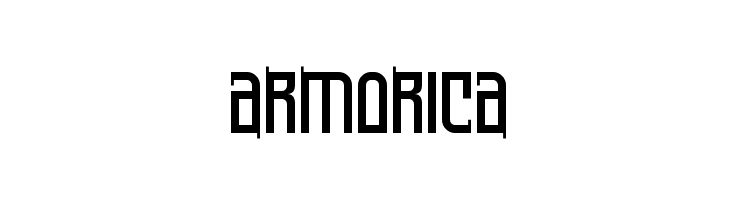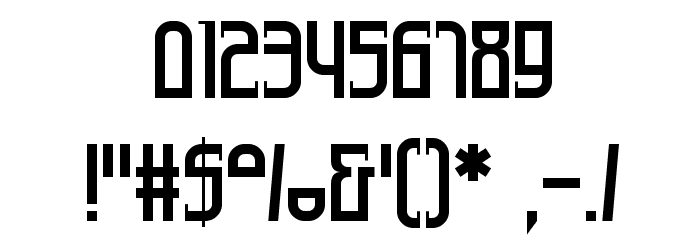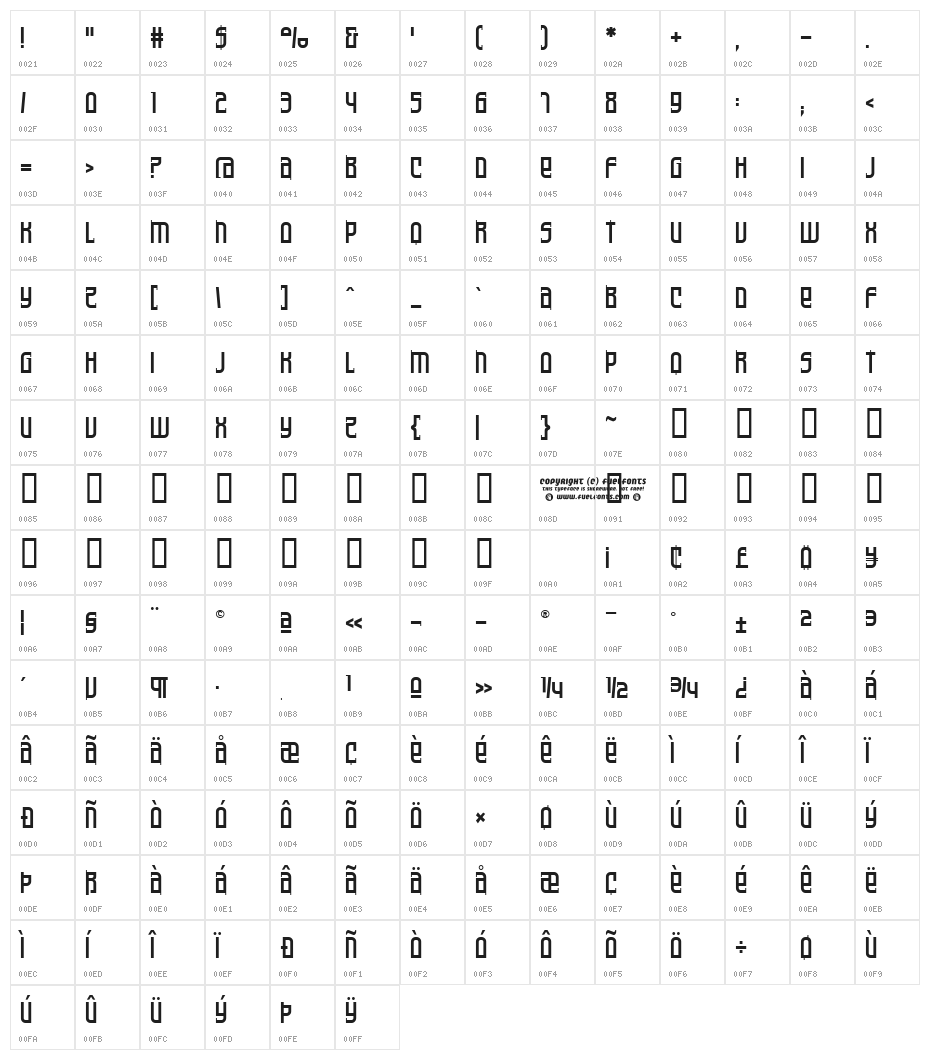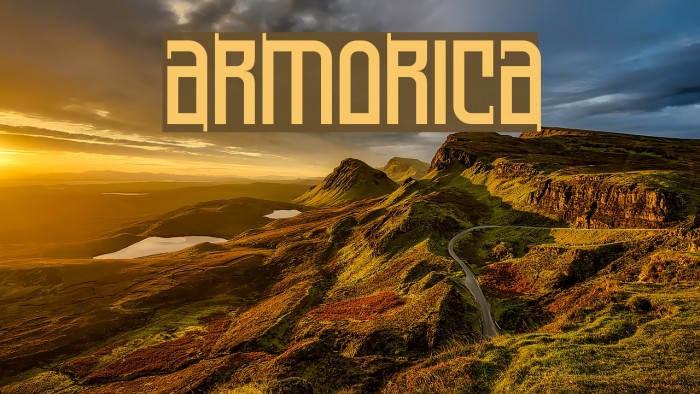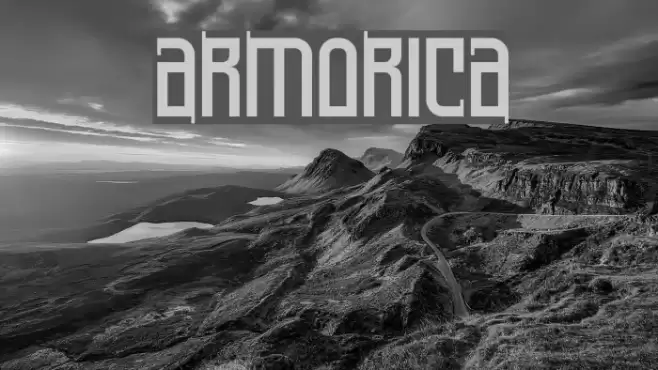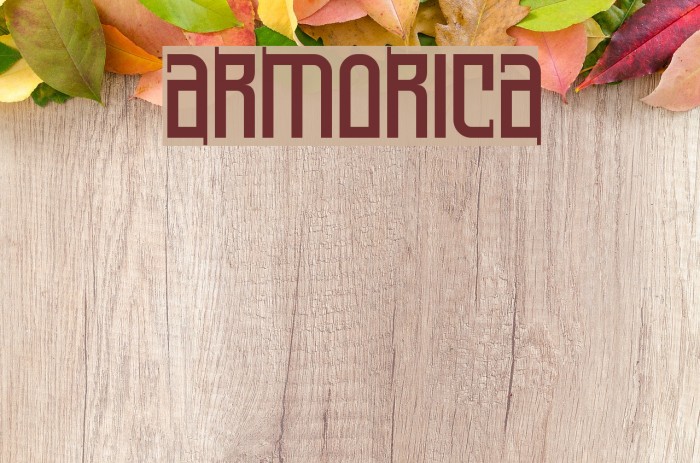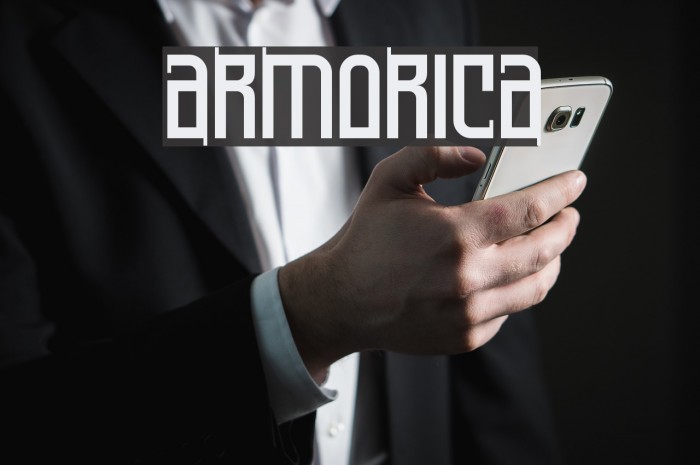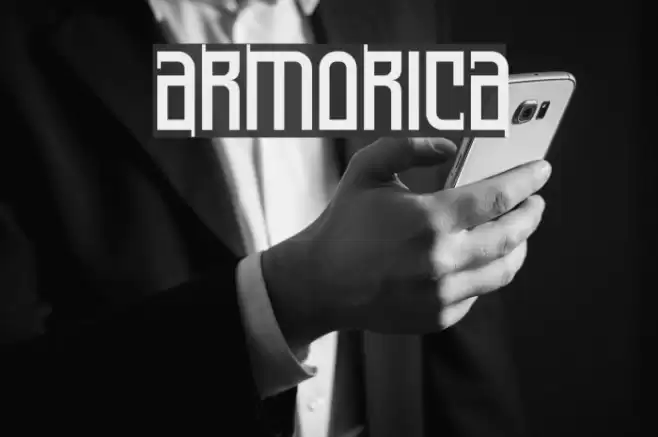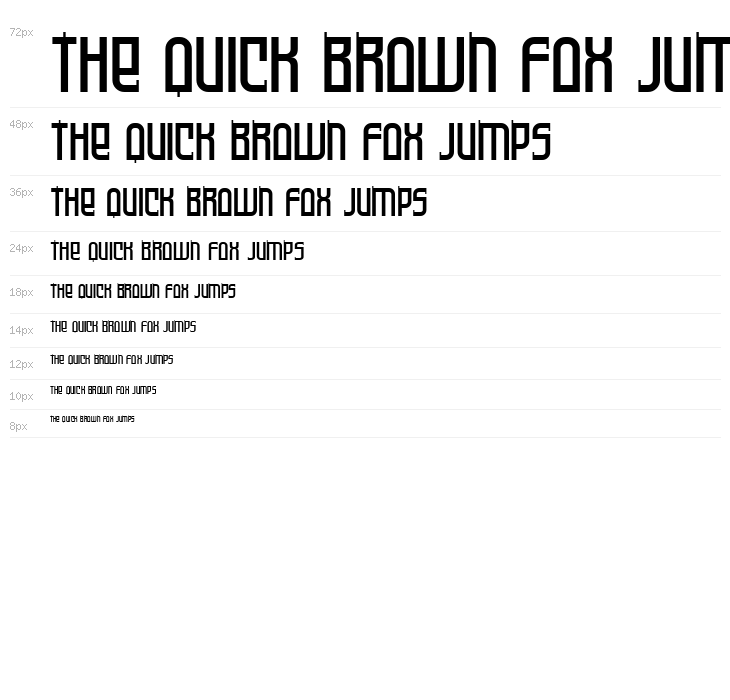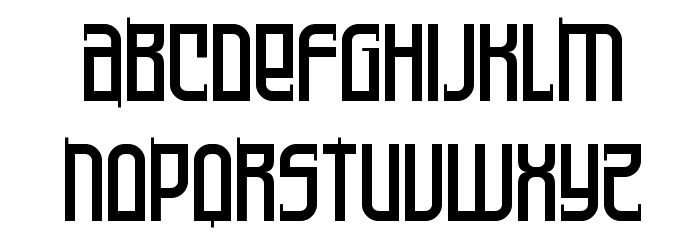
Armorica Font
Armorica Description
This font features a bold and geometric design with a modern flair. Its characters are constructed with straight lines and sharp angles, giving it a futuristic and tech-inspired appearance. The uppercase and lowercase letters maintain a consistent height, creating a uniform look. The numerals and special characters follow the same design principles, ensuring cohesion across all glyphs. The font's structure is clean and uncluttered, making it suitable for digital and print applications where clarity and impact are essential.